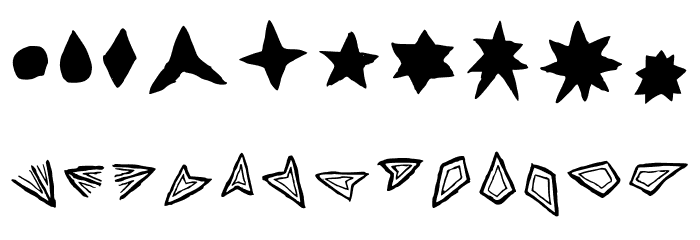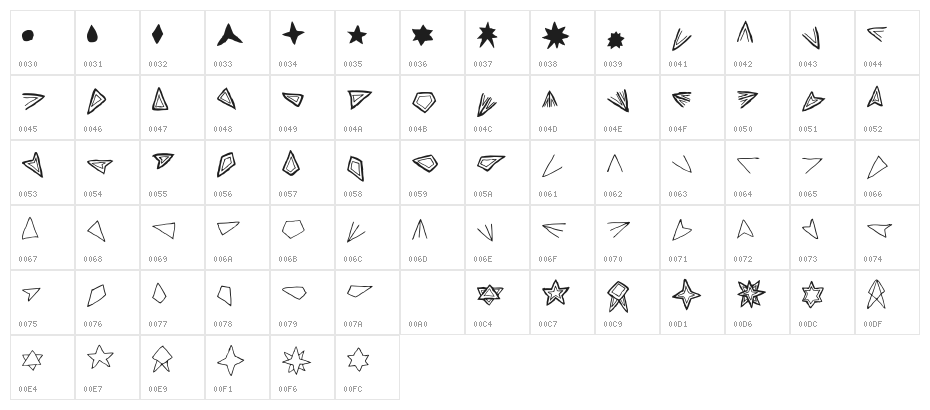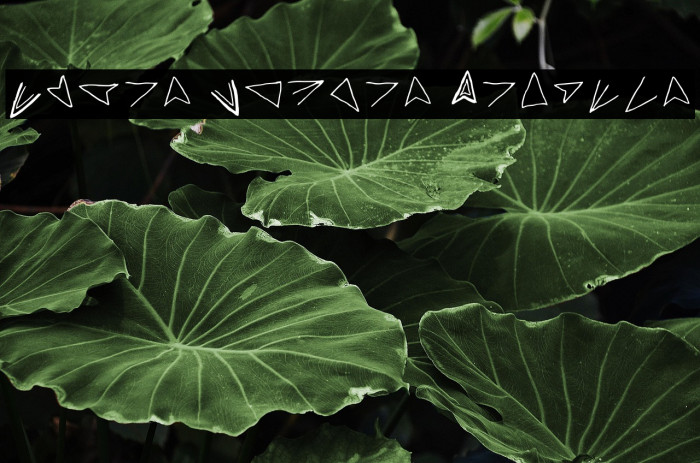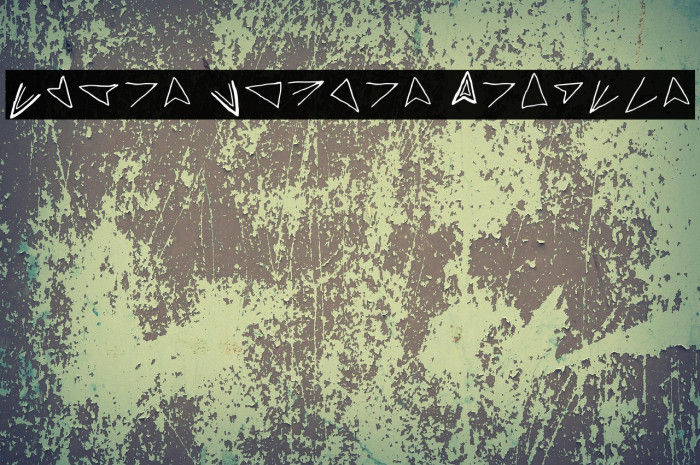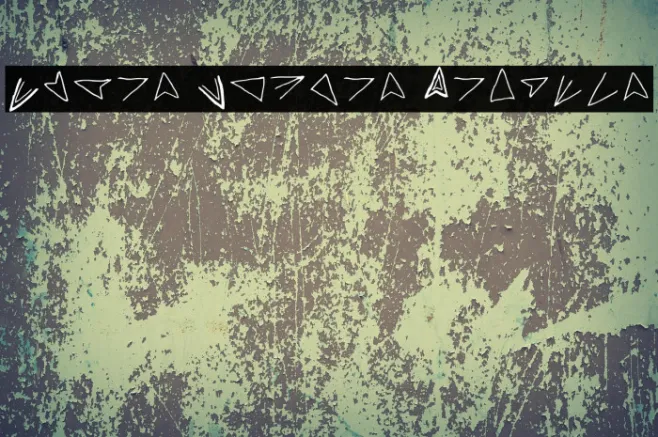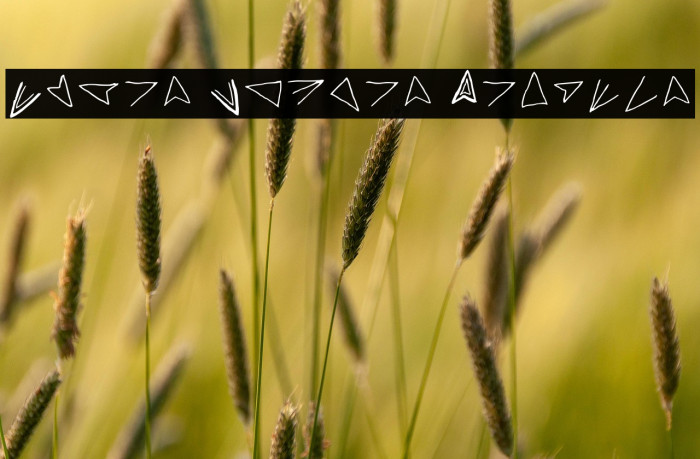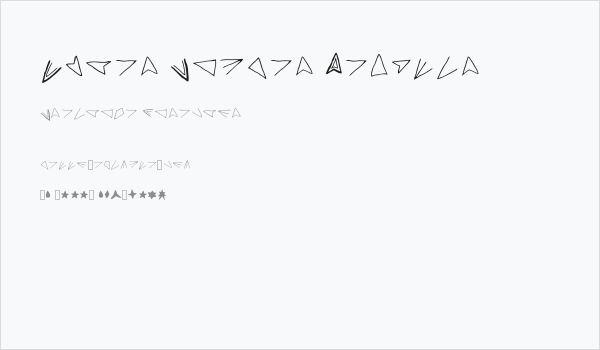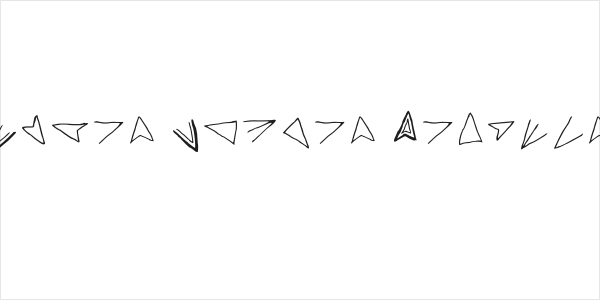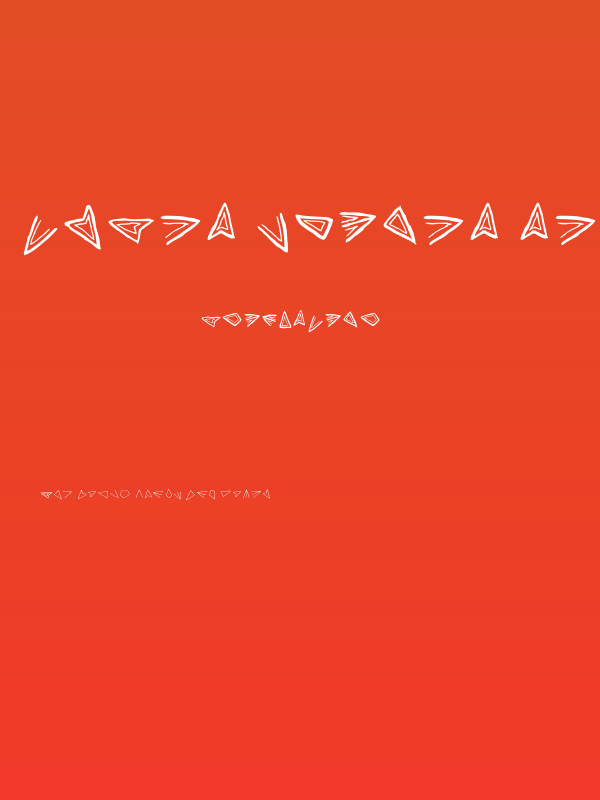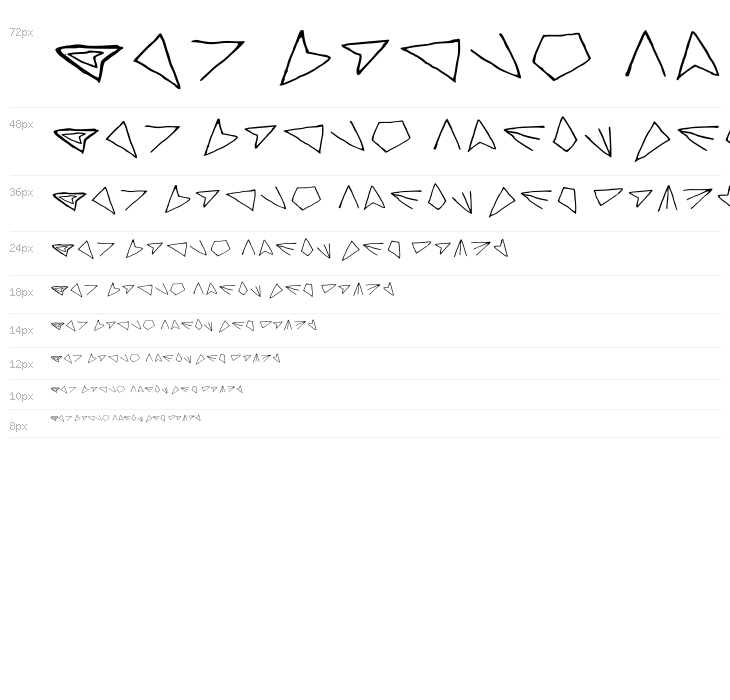
Aster Cipher Regular Font
Aster Cipher Regular Description
This font features a highly decorative and abstract design, characterized by sharp, angular shapes that resemble geometric symbols or hieroglyphs. Each character is unique, with a distinct triangular or polygonal form, creating a sense of mystery and intrigue. The font lacks traditional letterforms, instead opting for a more artistic and unconventional approach. The bold, thick lines and varying stroke widths add to its dynamic appearance, making it stand out as a statement piece. The overall aesthetic is modern and avant-garde, suitable for creative projects that require a touch of the unusual.
| Overall Style | Modern, Avant-garde |
| Proposed Projects | Ideal for artistic projects, branding for creative industries, album covers, or event posters that aim to capture attention with a unique style. |